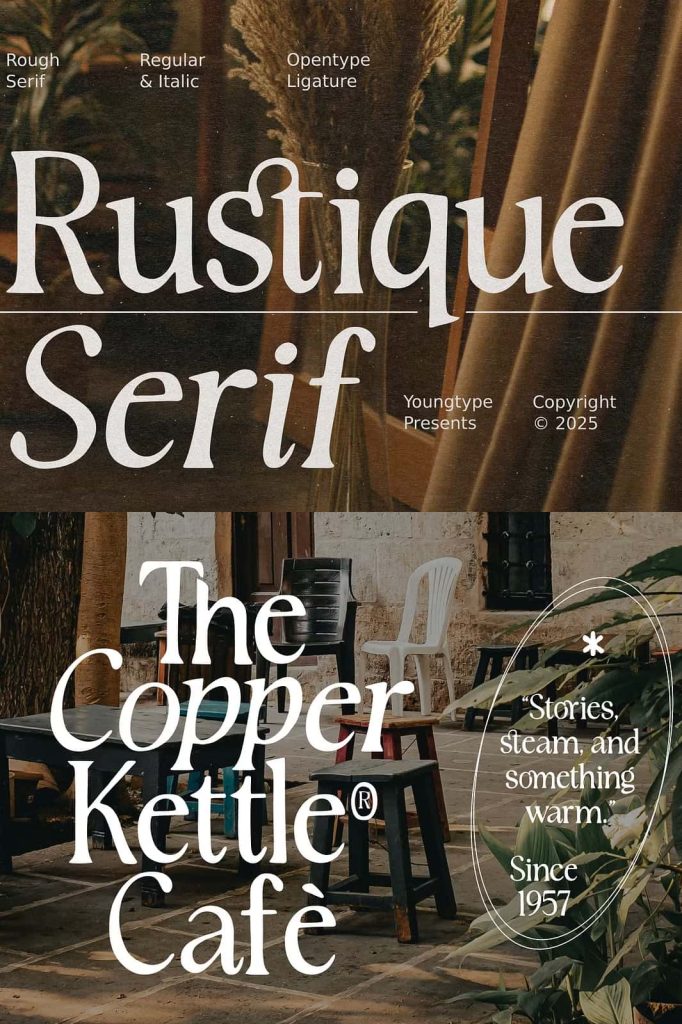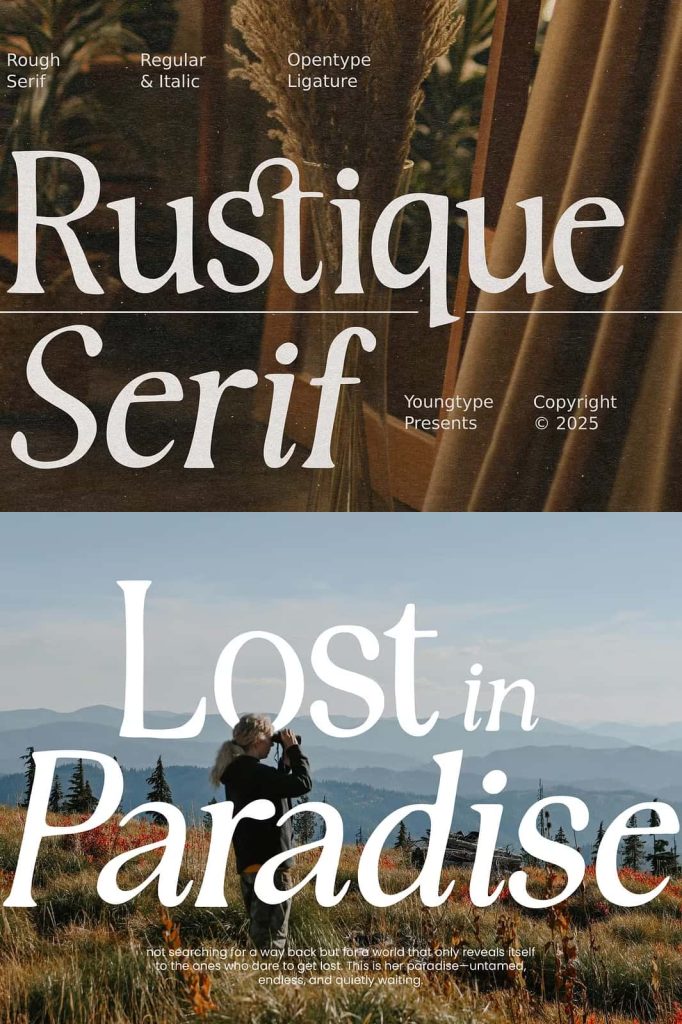
Rustique Serif
Rustique Serif is a refined and stylish typeface that combines a rough serif texture with elegant letterforms, making it perfect for creating a timeless, rustic aesthetic.